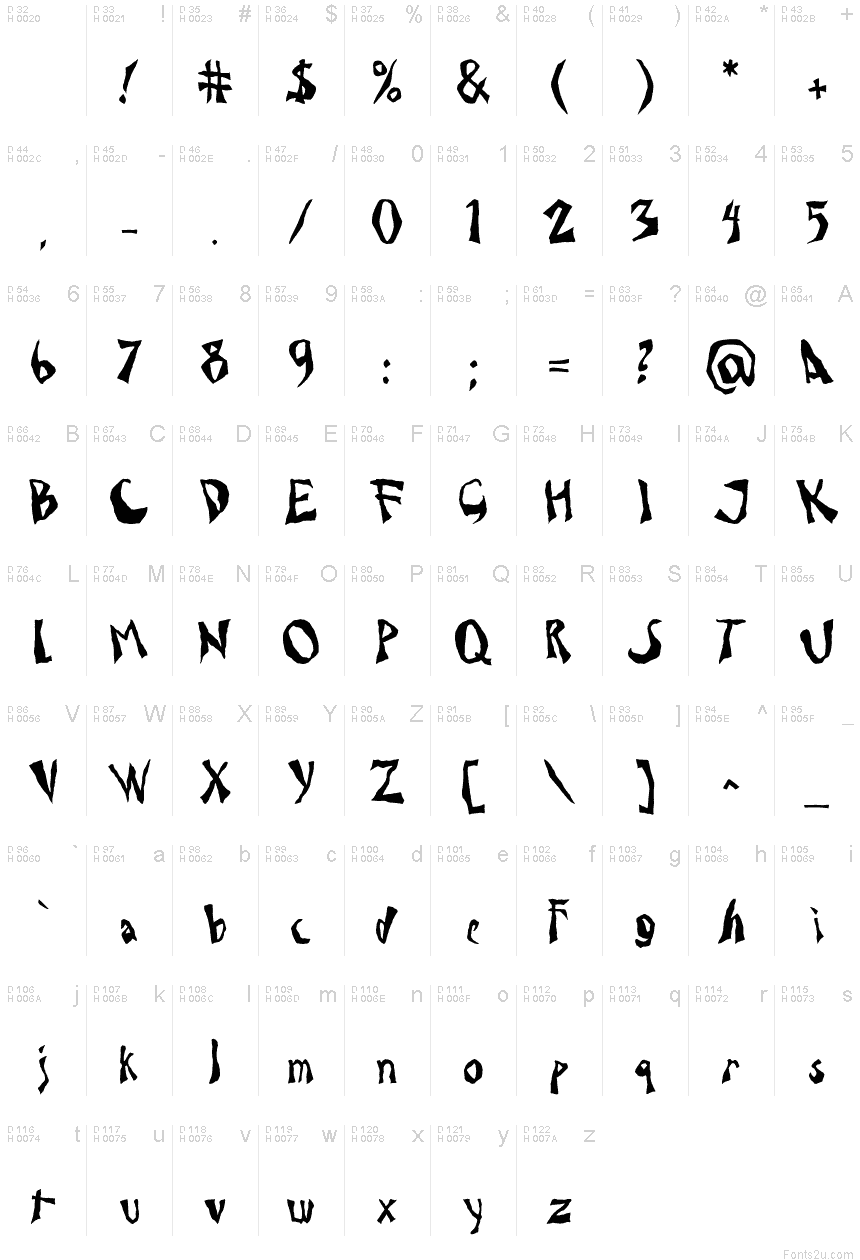
Dr. Caligari is a free distorted display font with the nervous silhouette of cut paper or roughly carved lettering. Its tall, uneven letters lurch between narrow strokes and swollen wedges, with sharp notches and ragged edges recurring across the alphabet, and some joins pinch tightly before flaring into abrupt blade-like feet and pointed hooks. The effect is tense and theatrical.
Film posters are its clearest territory, especially for horror, expressionist drama, and offbeat stage productions. It can also shape book covers, game graphics, and music merchandise, where the crooked contours can echo stark shadows, torn collage, or angular character art.
This font is based on the title cards of the 1920 silent horror film The Cabinet of Dr. Caligari, which is in the public domain.